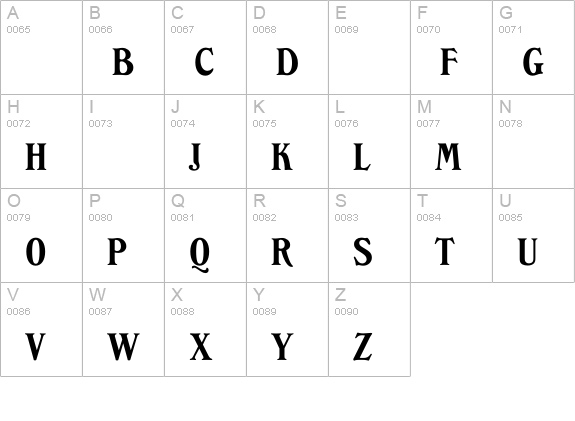
SycamoreLight Font Details
SycamoreLight font is a modern and stylish typeface that exudes elegance and sophistication. With its clean lines and sleek design, this font is perfect for a variety of design projects, from logos to invitations to branding materials. The SycamoreLight font features a unique combination of classic and contemporary elements, making it versatile and eye-catching. What's even better is that SycamoreLight font is completely free to download at FontsMarket.com. This means you can easily access this stunning font and use it in your projects without any cost. Whether you're a graphic designer, a business owner, or simply someone looking to add a touch of class to your creations, SycamoreLight font is the perfect choice. Download it today and elevate your designs with this beautiful and free font.